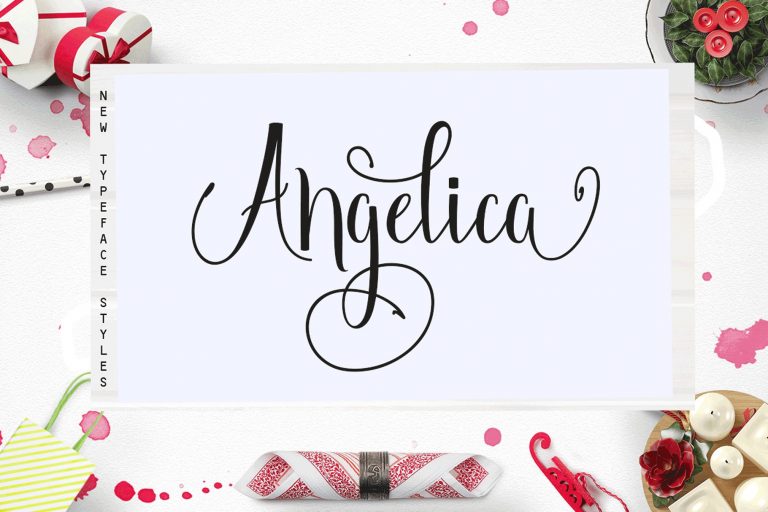
Angelica Script Font
Very great, it was my original feel. You want to make a greeting card or a package design, or even a brand identity, craft design? Feel free to play with all the patterns and shape! Introducing Angelica Font! Angelica, a work that is purely handwritten, has natural characteristics. It’s perfect for invitations, signatures, blogs, social media, business cards, product brands. Angelica is a simple font that has Stylistic standards, Stylistic Alternatives. and includes uppercase and lowercase letters, numbers and punctuation.